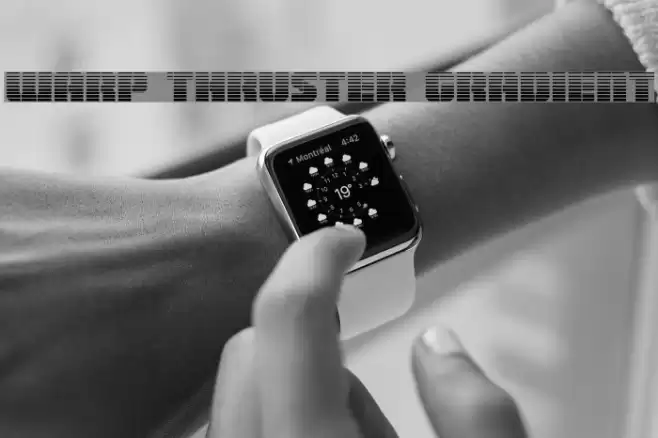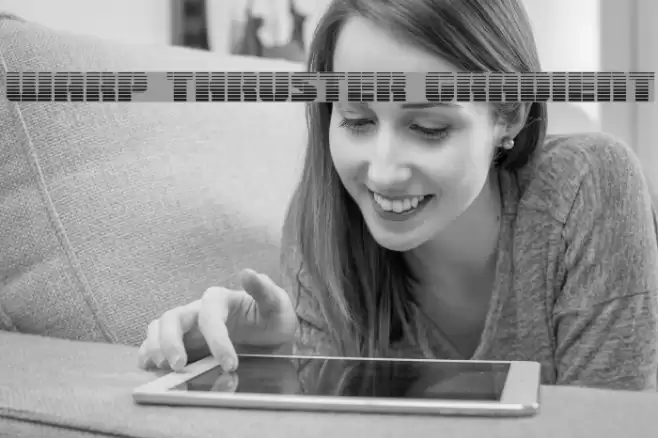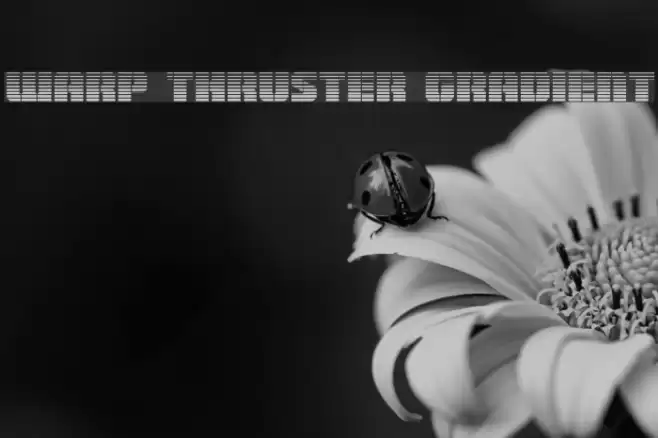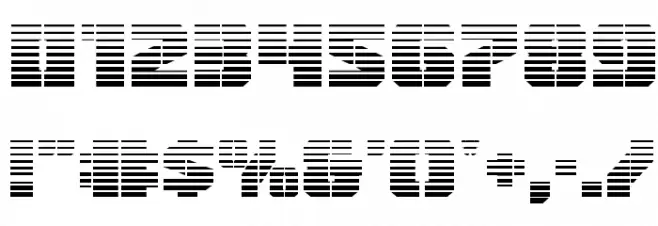
Warp Thruster Gradient Font
Warp Thruster Gradient Description
This font features a futuristic and dynamic design with a distinct horizontal stripe pattern running through each character. The bold, geometric shapes are reminiscent of digital displays or sci-fi aesthetics, creating a sense of movement and speed. The uppercase and lowercase letters maintain a consistent style, with the stripes adding a unique texture that enhances the visual impact. Numbers and special characters are equally bold and follow the same striped pattern, ensuring uniformity across all glyphs. This font is ideal for projects that require a modern, tech-inspired look.
A futuristic, striped font with bold geometric shapes and a digital aesthetic from Uncategorized fonts.
- Proposed Projects: Ideal for sci-fi movie titles, tech company logos, video game interfaces, and futuristic event posters.